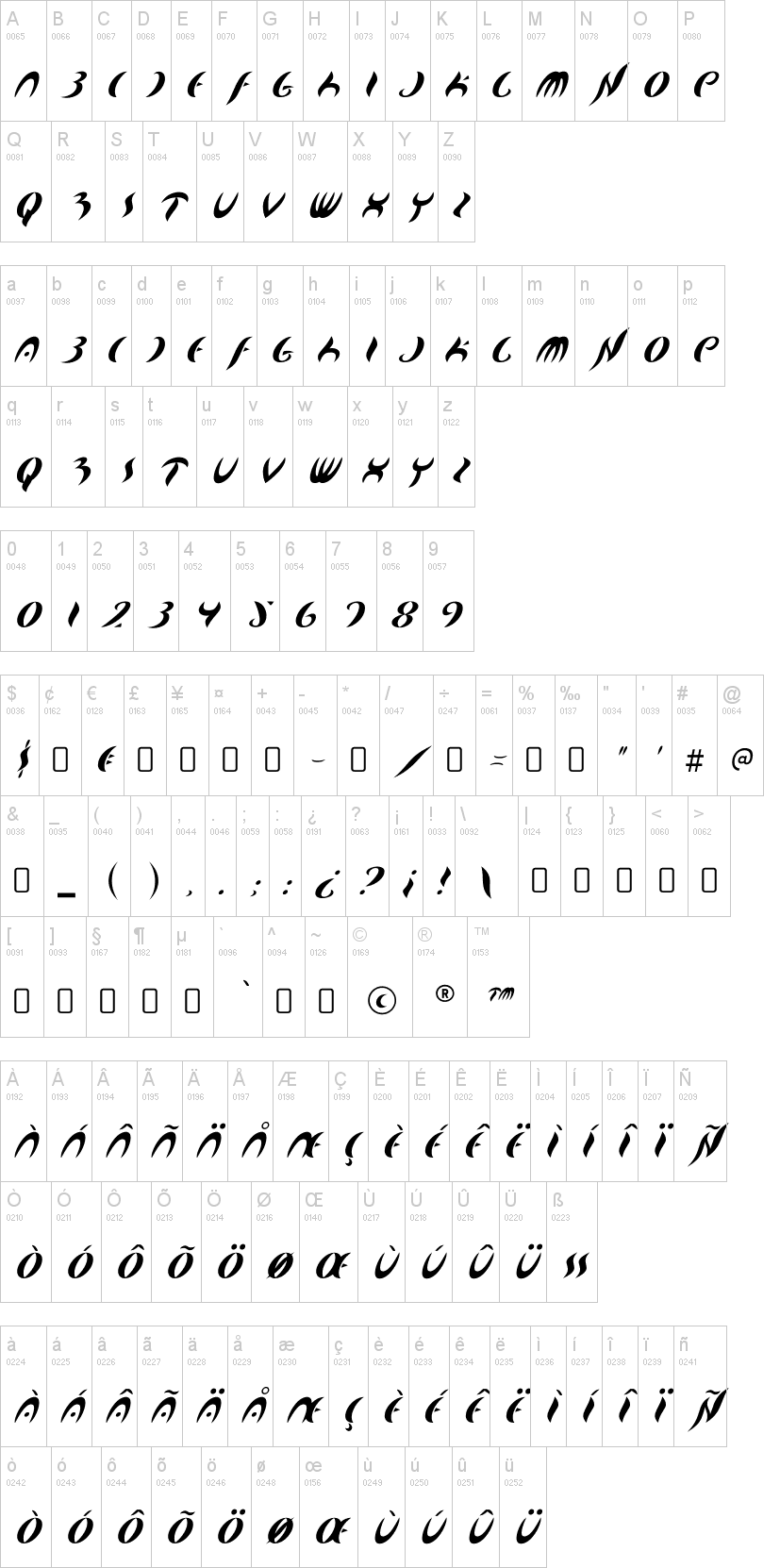
Шрифт Map Of You
The scimitar flavored Map Of You was created for intergalactic space tribes. Don't forget to read the files inside the zip for details. Updated in 2012.